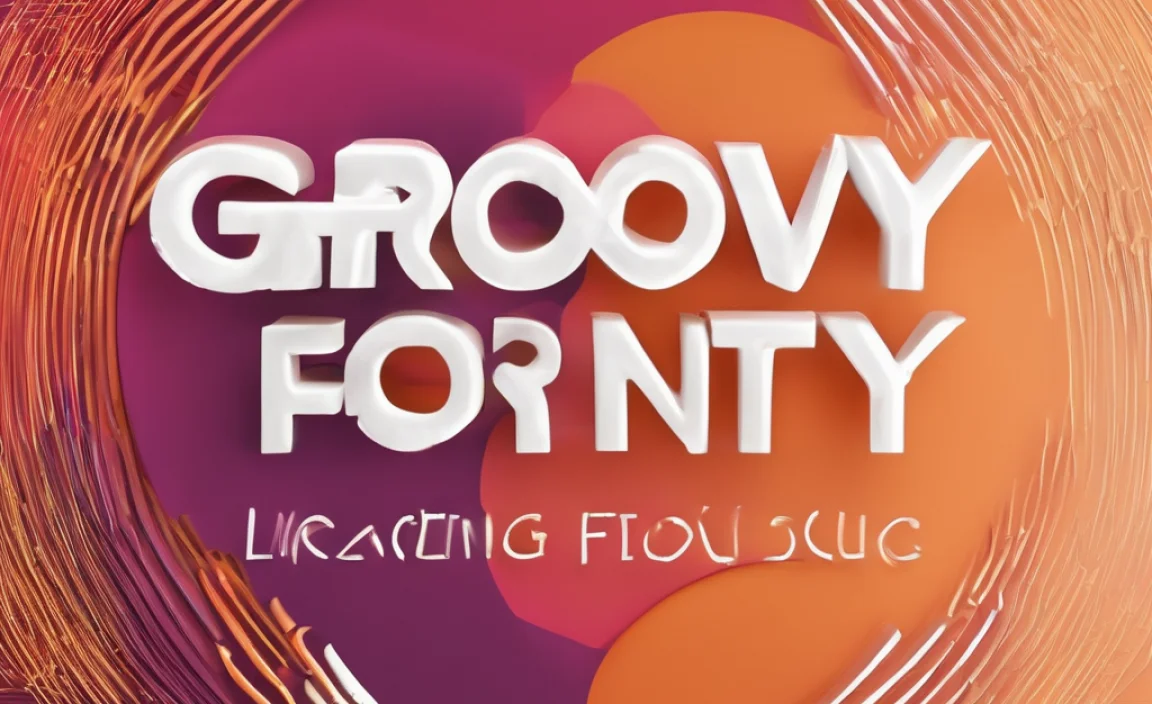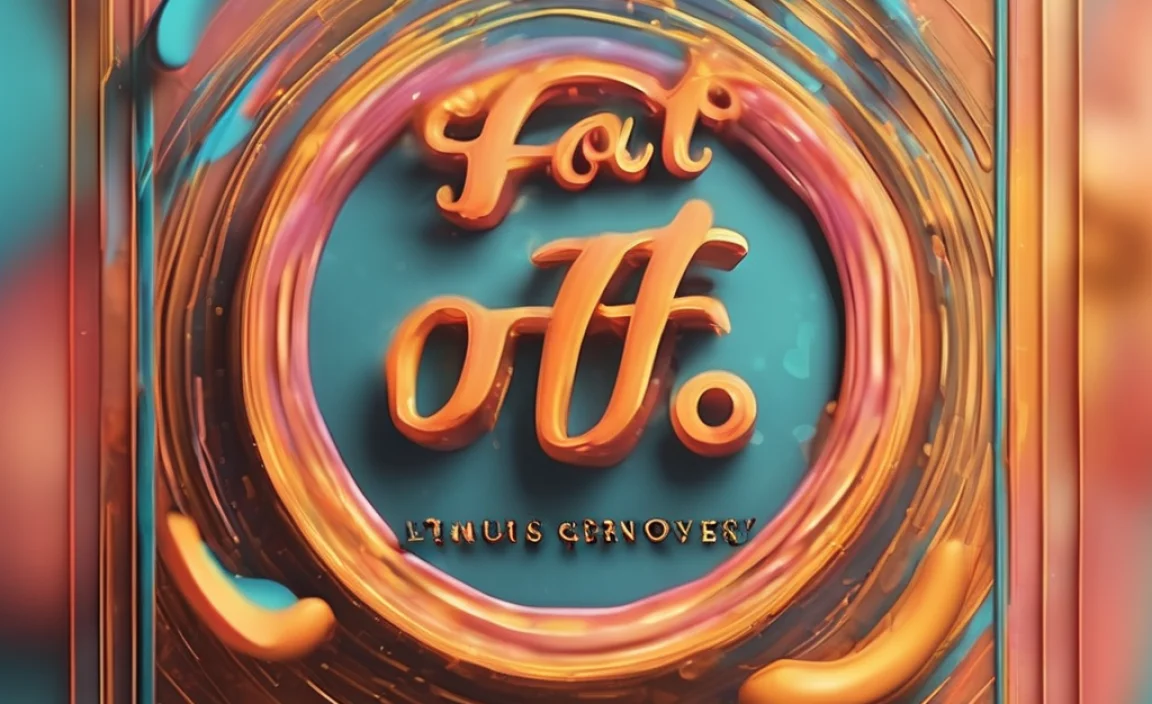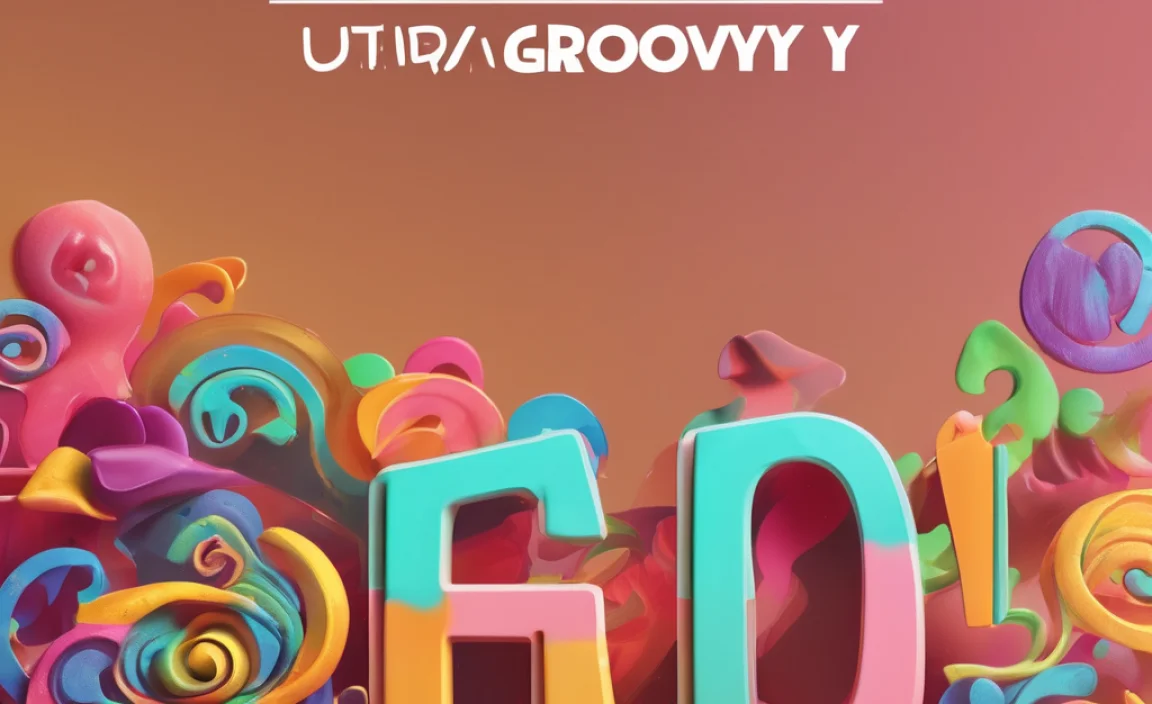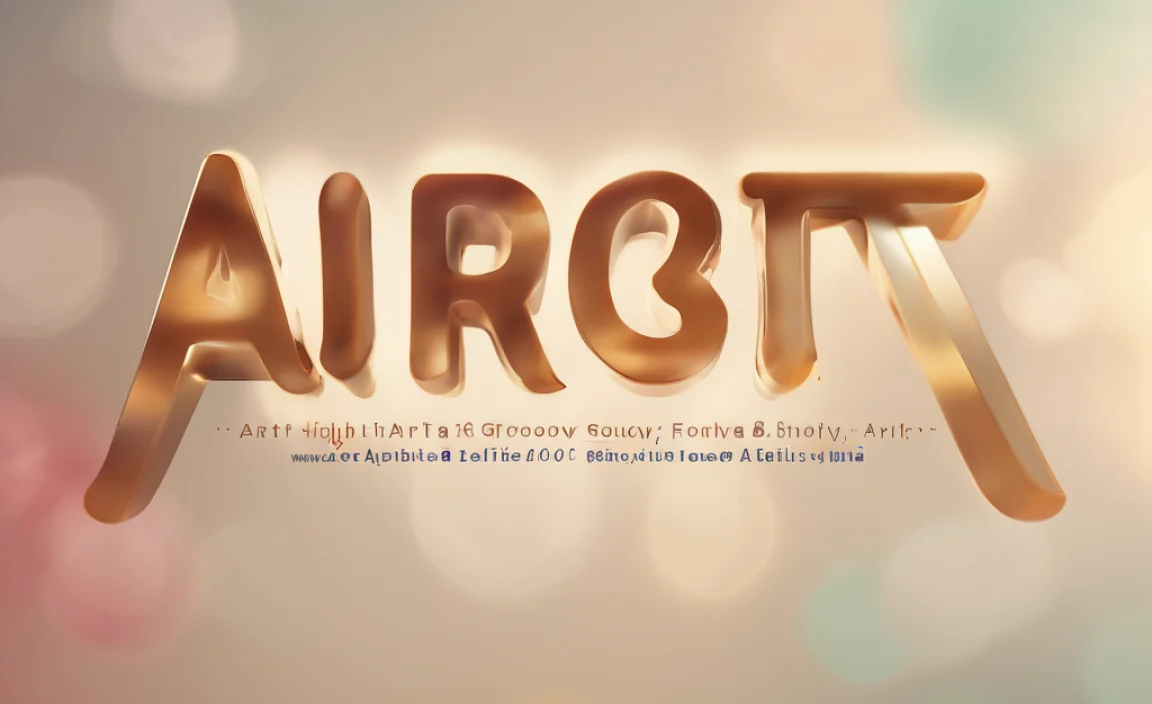
Have you ever seen words that look like they are dancing? This is the magic of Art Of Groovy Font. It turns regular letters into something special. Imagine writing your name and making it look amazing. Let’s explore how this unique font style works and why it’s so much fun.
Groovy fonts are not just for fun; they tell a story. They can make any text pop and stand out. Think about a comic book or a cool poster. These fonts make reading exciting. Let’s dive into the world of groovy fonts and see how they change the way we see words.
Key Takeaways
- Groovy fonts make text look fun and exciting.
- They add a special touch to posters and comics.
- The Art Of Groovy Font brings creativity to words.
- Children love using groovy fonts in their projects.
- Learning about fonts can enhance your design skills.
The Magic Behind Art Of Groovy Font
The Art Of Groovy Font is about making letters come alive. Each letter has curves and twists. These make words look like they are moving. Artists create these fonts by drawing letters in fun ways. They use bright colors and cool shapes. This makes words look happy and full of energy.
- They add personality to words.
- They make text more readable.
- Colors make them stand out.
- Used in comics and posters.
- Bring fun to reading texts.
- Helps with creative projects.
Using groovy fonts is like adding a smile to your words. They can change the mood of a message. If you want to make a birthday card exciting, use a groovy font. It’s like sprinkling magic dust on your words. They make readers pay attention and feel happy. Kids love using them because they make any project look cool.
Fun Fact or Stats : Groovy fonts were very popular in the 1960s and 1970s!
Why Do Artists Love Groovy Fonts?
Artists love groovy fonts for their unique style. They can express a lot with them. Have you ever seen a movie poster that looks exciting? That’s probably because of the font. Groovy fonts grab attention and make everyone look. They help artists show emotions through words.
Can You Make Your Own Groovy Font?
Yes, you can make your own groovy font! Imagine drawing each letter in your style. You can use different colors and shapes. Making your font is like creating your art. It’s a fun project for every creative mind.
Where Can You Find Groovy Fonts?
You can find groovy fonts online. Many websites offer free fonts. You can also find them in design books. These fonts are used in many places like magazines and ads. Once you find them, you can use them for cards, posters, and more. It’s like having a toolbox of fun letters ready to use.
How Groovy Fonts Change Design
Groovy fonts change the way we see design. They can make something simple look special. Imagine a plain t-shirt. Add a groovy font, and it becomes a cool shirt. Designers use these fonts to make products unique and interesting.
- Enhance product packaging.
- Make logos attractive.
- Boost brand identity.
- Used in advertisements.
- Creative brand storytelling.
Designers love using groovy fonts for branding. They can make a company’s logo memorable. When people see a groovy font, they remember it. It sets a brand apart. These fonts are perfect for companies that want to look fun and lively. They make customers feel happy and engaged.
Fun Fact or Stats : Many famous brands use custom fonts for their logos!
How Do Groovy Fonts Influence Feelings?
Groovy fonts influence feelings by their appearance. Imagine seeing a fun and wavy font. It makes you feel excited and joyful. These fonts can change the way we feel about words. They can turn a boring message into something fun.
What Products Use Groovy Fonts?
Many products use groovy fonts. Look around! You might see them on food packages, toys, or t-shirts. They help products stand out on shelves. They make buyers interested in the product. It’s like seeing a friendly face in a crowd.
Are Groovy Fonts Popular Today?
Yes, groovy fonts are still popular today. Many people love their retro style. They bring a sense of nostalgia and fun. Designers use them to create a vintage look. They are trendy in creative industries, like fashion and advertising.
Creating With Art Of Groovy Font
Creating with the Art Of Groovy Font is a fun experience. You can express yourself through design. Imagine creating a poster for a school event. Using groovy fonts can make it stand out. The letters catch everyone’s eye and make them curious.
- Design posters and flyers.
- Create unique school projects.
- Use in digital art.
- Great for greeting cards.
- Perfect for social media posts.
- Enhances presentations.
Using groovy fonts is like painting with words. You can tell a story through your design. It makes any project special. Kids enjoy using these fonts because it makes work feel like play. Groovy fonts add a splash of color and fun to every project.
Question: How do groovy fonts impact design?
Answer: Groovy fonts transform design by adding uniqueness and fun. They make simple designs look special. The Art Of Groovy Font helps brands stand out. They create memorable logos and engaging advertisements. These fonts turn any text into a captivating visual experience.